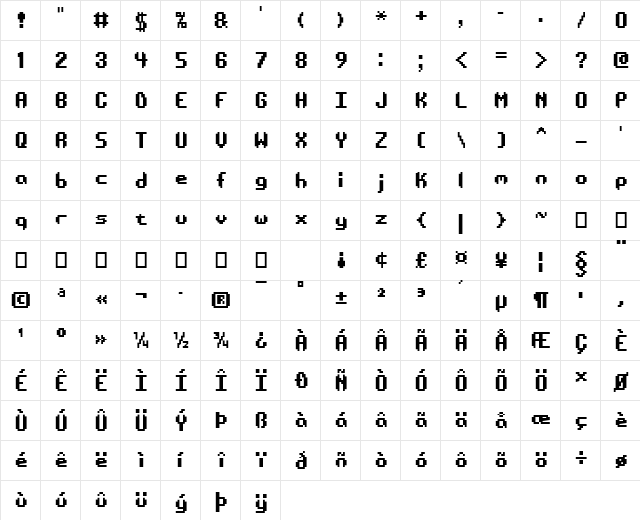
ƠSystematic TT (BRK) Regular
Design Context for ƠSystematic TT (BRK) Typeface
ƠSystematic TT (BRK) offers clean, dependable letterforms without strong stylistic allegiance, making it a practical choice for designers who need flexibility.